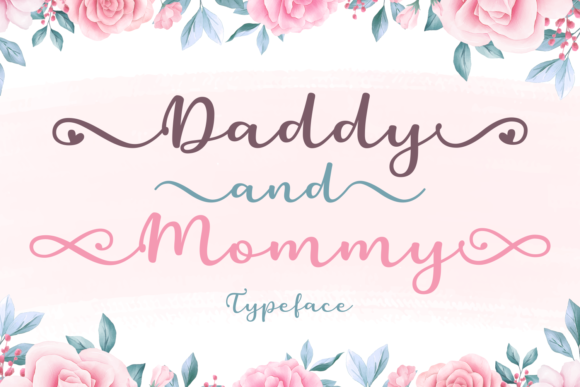
**Daddy and Mommy: The Script Font That Will Make Your Designs Pop!**
Immerse yourself in the world of calligraphy with Daddy and Mommy, a captivating script font brimming with charm and versatility. Its enchanting swashes and elegant ligatures dance across the page, transforming your creative visions into breathtaking masterpieces.
With Daddy and Mommy, the possibilities are limitless. Unleash your inner artist and craft stunning invitations that exude warmth and personality. Create captivating social media graphics that will make your posts stand out from the crowd. Or let your imagination soar as you design enchanting logos that leave a lasting impression.
Daddy and Mommy's friendly and approachable nature makes it the perfect font for projects that evoke a sense of joy and connection. Whether you're a seasoned designer or just starting your creative journey, this font will empower you to create designs that captivate and inspire.
Join the calligraphy revolution and embrace the magic of Daddy and Mommy. Let its whimsical strokes add a touch of delight to your designs and leave an unforgettable mark on your audience.